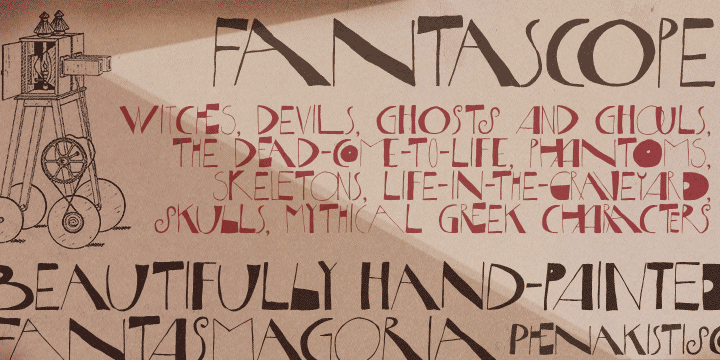
Horst Font Family was designed by Erica Jung, Ricardo Marcin and published by PintassilgoPrints. Horst contains 1 styles. More about this family
Inspired by Laatzen’s Bilderbogen etchings by the extraordinary artist and printmaker Horst Janssen, this font is packed with Open Type features that allow the creation of unique typographic pieces. Besides the set of automatic discretionary ligatures, this all-caps font also comes with two extra stylistic sets, so there are 4 versions for each letter (plus the variations contained in the ligatures). When working with ligatures turned on, the carefully handcrafted kerning table takes advantage of overlapping some ligatures with its neighbor letters, multiplying ligatures performance. An unmistakable original font to create outstanding design works!